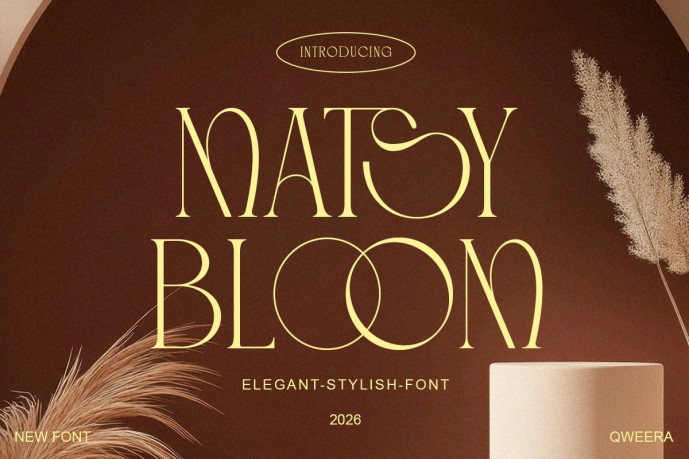
Matsy Bloom Font
Designer: Idhham Cholid Rikzano Yahya
Matsy Bloom is an elegant stylish serif font crafted for modern fashion branding, home decor identity, floral logos, boutique packaging, and refined editorial layouts. With its graceful serif structure, soft contrast, and expressive ligature details, Matsy Bloom brings a warm, polished, and sophisticated personality to modern visual projects.
Its refined display character works beautifully for fashion campaigns, interior design branding, florist logos, coffee house visuals, boutique labels, lifestyle packaging, magazine headlines, social media graphics, and premium brand presentations. Matsy Bloom includes uppercase and lowercase characters, stylish alternates, ligatures, multilingual support, professional kerning, Regular and Italic styles, plus OTF, TTF, formats for polished print and digital use.
Bring warm elegance, stylish serif detail, and refined lifestyle charm into your next branding, packaging, or editorial project with Matsy Bloom.
Features
Elegant stylish serif style
Complete uppercase and lowercase characters
Stylish alternates and ligatures
Multilingual character support
Professional kerning for polished typography
Regular and Italic font styles
Refined lifestyle look for fashion, decor, floral, and boutique branding